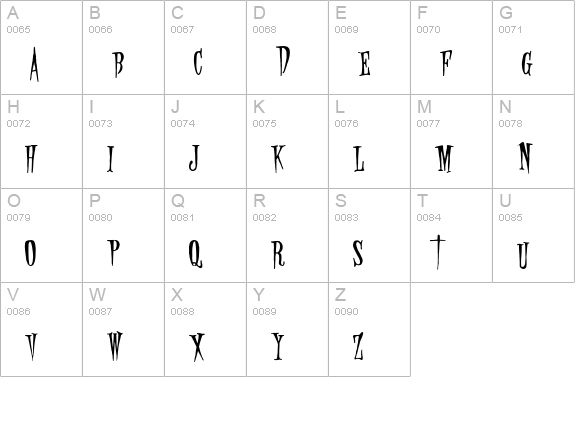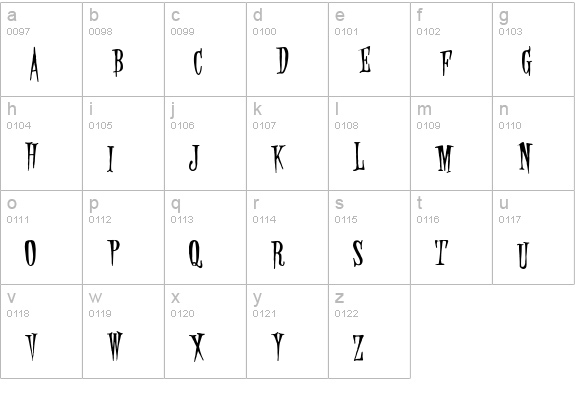
Deviliette Font Details
Introducing Deviliette font - a bold and stylish typeface that exudes an air of sophistication and mystery. With its sharp edges and intricate details, Deviliette is perfect for creating eye-catching headlines, logos, and branding materials. This unique font combines modern elegance with a touch of edginess, making it ideal for projects that require a bold statement. Whether you're designing a poster, website, or packaging, Deviliette is sure to make a lasting impression. Best of all, Deviliette font is available for free download at FontsMarket.com. Don't miss out on this opportunity to add a touch of devilish charm to your designs with Deviliette font. Download it today and unleash your creativity!